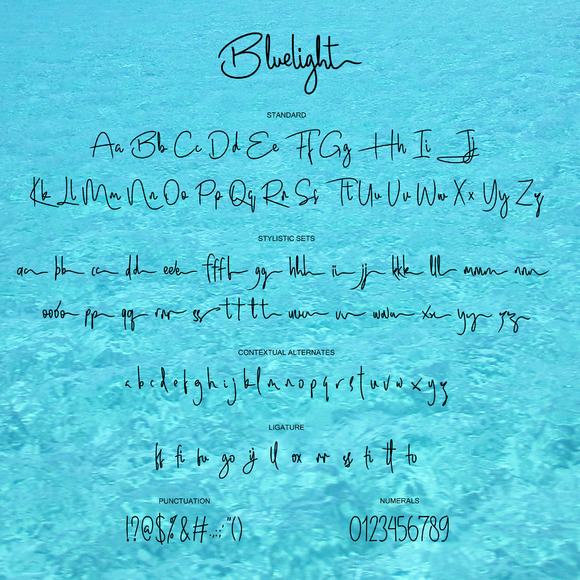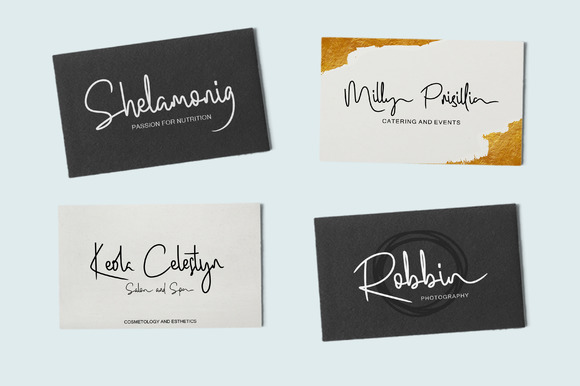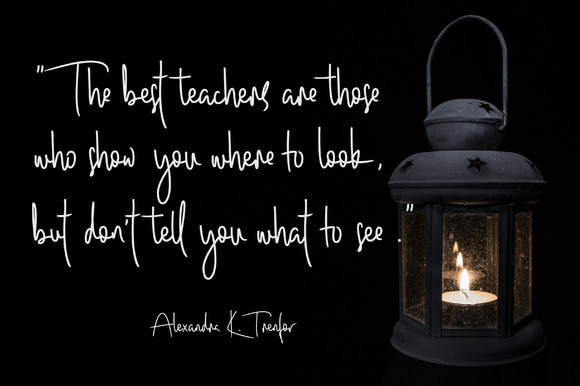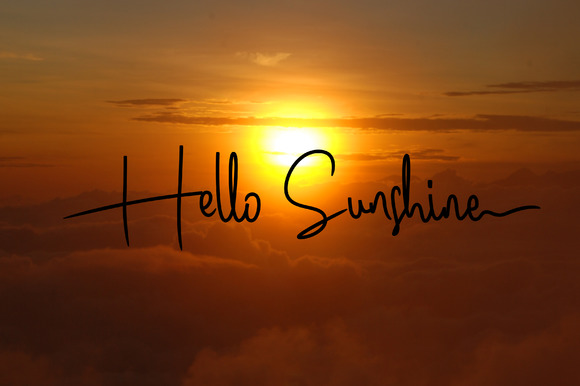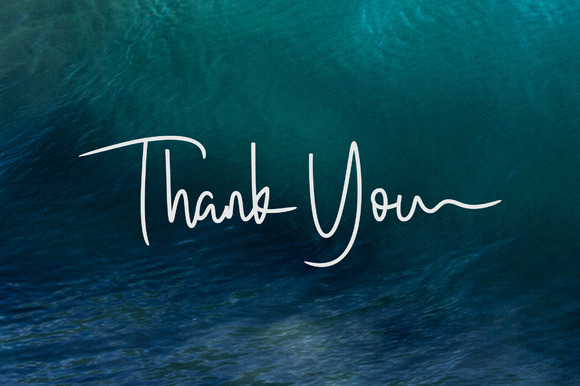
Bluelight Font
About Bluelight Font
Bluelight Script is a new fresh & modern script with a sweet calligraphy-style, decorative characters and a dancing baseline!